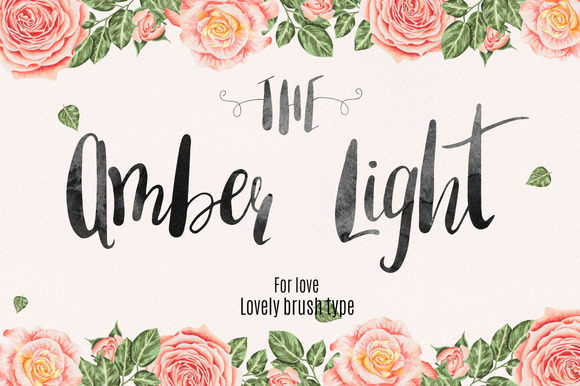
The Quest for the Perfect Font: Discovering Amber Light
Ah, the eternal search for the perfect font. We’ve all been there – working on a project, pouring our heart and soul into it, and then… font paralysis sets in. You know, that moment when you’re scrolling through font after font, and none of them seem quite right. I recall a particularly frustrating experience while working on a wedding invitation design. My client wanted something elegant, yet modern, and I was determined to find the perfect fit. That’s when I stumbled upon Amber Light, a lovely hand-lettered and modern script font that stole my heart.
First Impressions: A Love Letter to Amber Light
Amber Light has a classic feel to it, with a dash of modern flair. This beautiful font is perfect for a wide range of projects, including posters, t-shirts, letterheads, logos, labels, wedding invitations, cards, and anything else you can imagine. Here’s what I love about Amber Light:
- ✨ Elegant and sophisticated, yet approachable and friendly
- 💫 Beautifully crafted with attention to detail and a clear passion for typography
- 🎨 Versatile and adaptable to various design styles and contexts
The Not-So-Perfect: A Few Quirks to Consider
No font is perfect, and Amber Light is no exception. Here are a few minor quirks to keep in mind:
- 🤔 Some users may find the font a tad too ornate for very informal or playful projects
- ⚠️ Limited availability of certain OpenType features in certain software or platforms
The Story Behind Amber Light: Designer Inspiration
While the true story behind Amber Light’s creation remains a mystery, it’s easy to imagine a talented type designer pouring their heart and soul into crafting this beautiful font. Perhaps they drew inspiration from classic calligraphy, combined with a passion for modern typography. Whatever the story, Amber Light is a shining example of exceptional font design.
| Font Name | Amber Light Font |
| Author | Mellow Design Lab |
- Q: What type of projects is Amber Light best suited for?
- A: Amber Light is versatile and can be used for a wide range of projects, including posters, t-shirts, letterheads, logos, labels, wedding invitations, cards, and more.
- Q: Does Amber Light support OpenType features?
- A: Yes, Amber Light supports various OpenType features, including ligatures, stylistic alternates, and glyphs. The availability of these features may vary depending on the software or platform used.